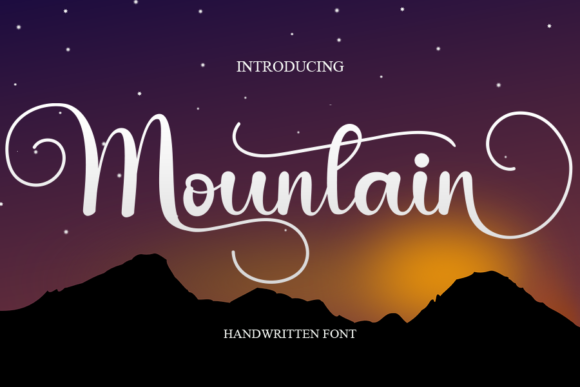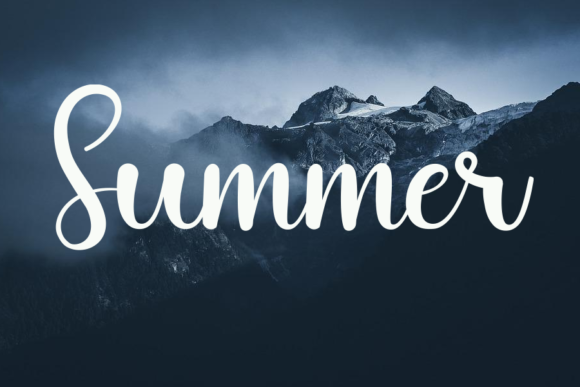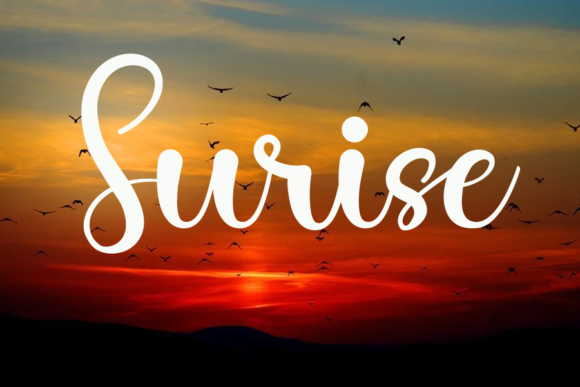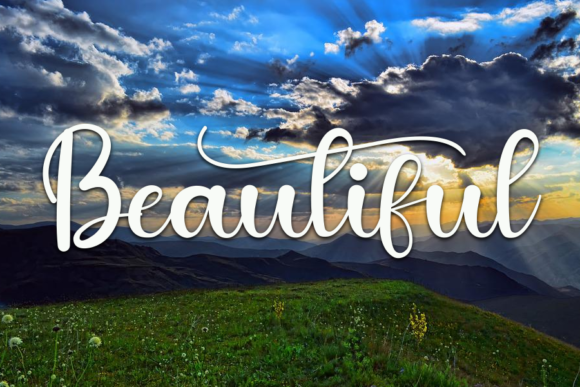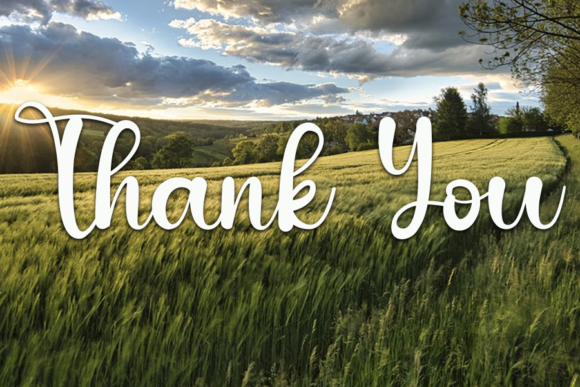
Mountain Font
About Mountain Font
Mountain is a charming, romantic, and beautiful script font that exudes sweetness with an added touch of sophistication. With chic curves defining each letter, this font brings an aesthetic appeal that is perfect for conveying a romantic and elegant vibe. Moreover, Mountain is PUA encoded, ensuring easy access to all the delightful glyphs and elegant swashes it has to offer.
The sweet and romantic character of Mountain makes it an ideal choice for projects that require a touch of love and beauty. Whether used in wedding invitations, love letters, or any design seeking to evoke emotions, Mountain’s chic curves add a refined elegance that enhances the overall visual experience.
The inclusion of PUA encoding further enhances the usability of Mountain, allowing for convenient access to its full range of glyphs and graceful swashes. This feature empowers designers to explore and incorporate various stylistic elements seamlessly, making it easy to customize the font to suit the specific requirements of their projects.
In summary, Mountain is more than just a font; it’s a romantic and beautiful script that brings chic curves and elegance to your designs. Whether creating wedding materials or infusing a touch of romance into any project, Mountain stands as a stylish and versatile option. With PUA encoding providing effortless access to its rich features, this font ensures that your designs are graced with a sweet and sophisticated aesthetic.